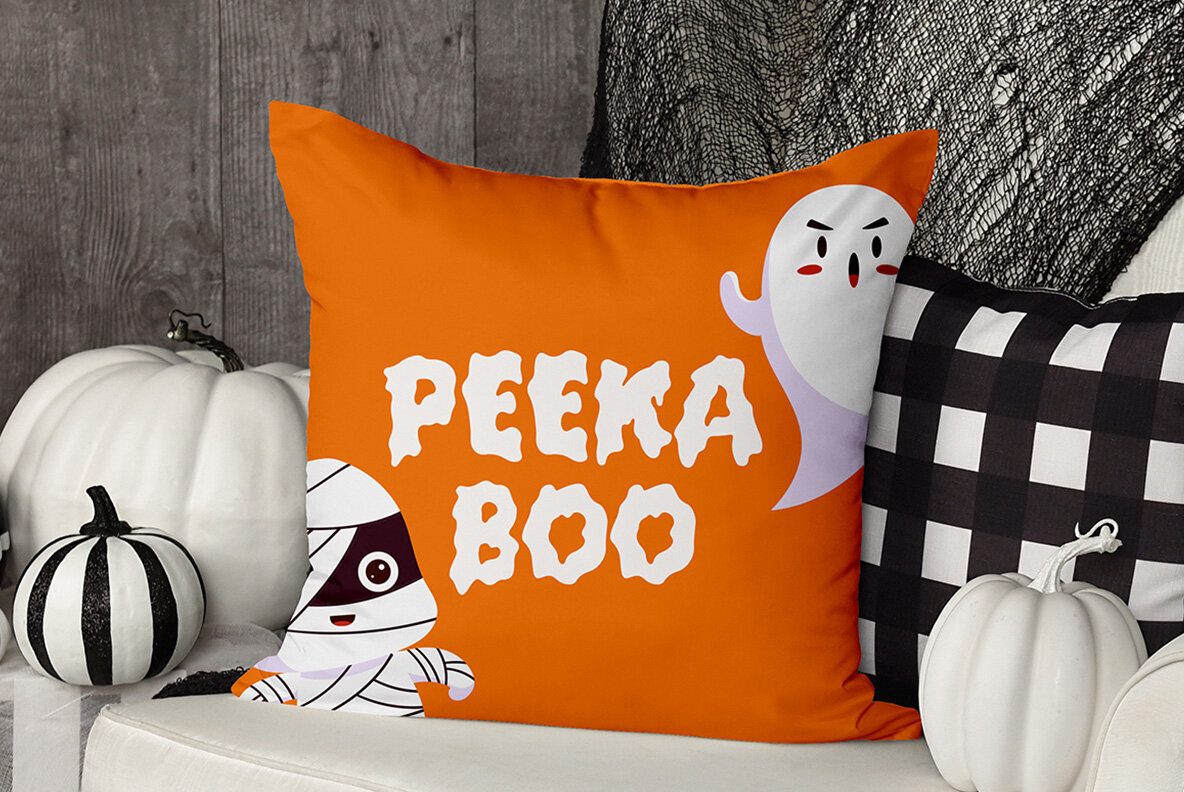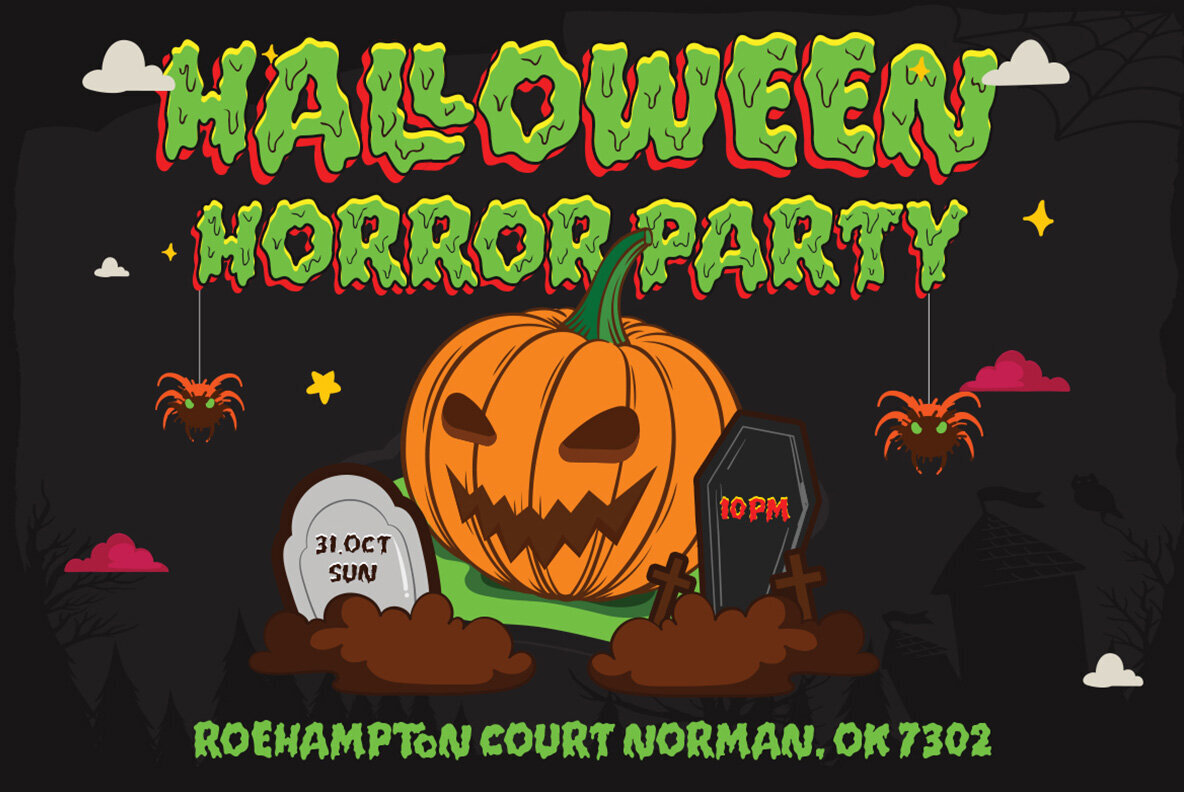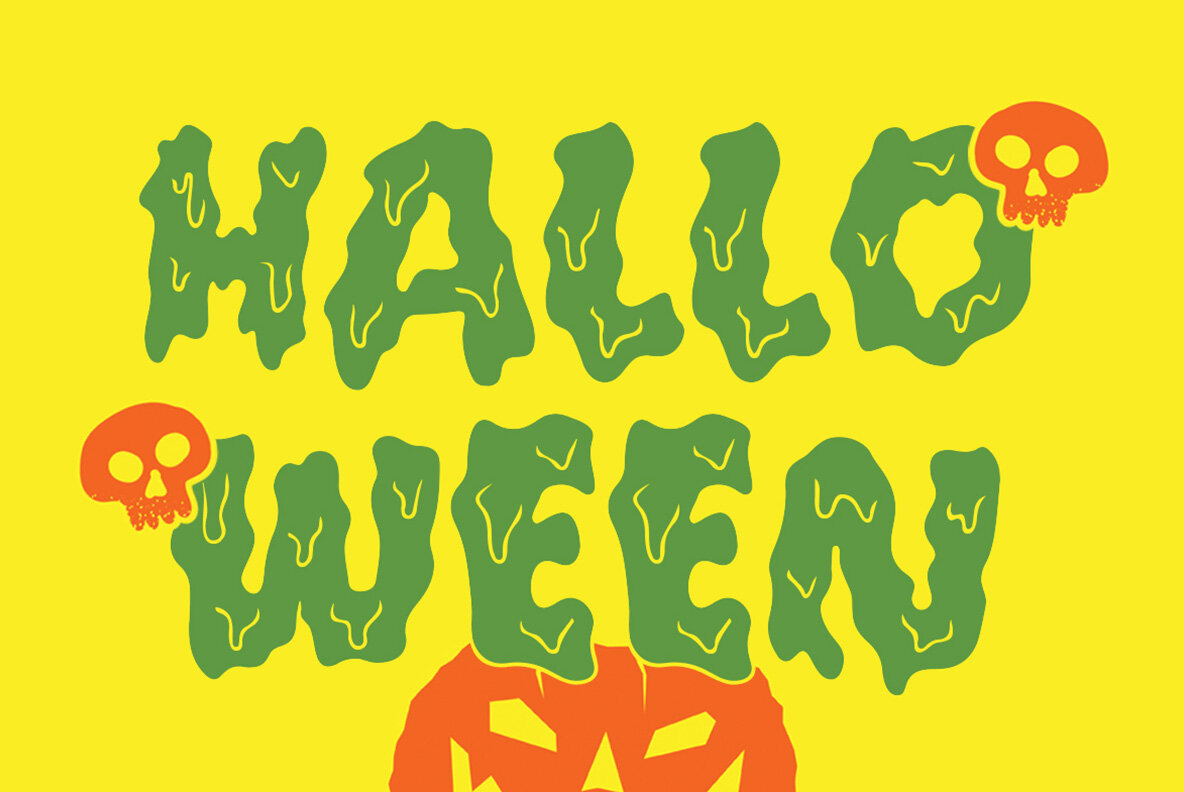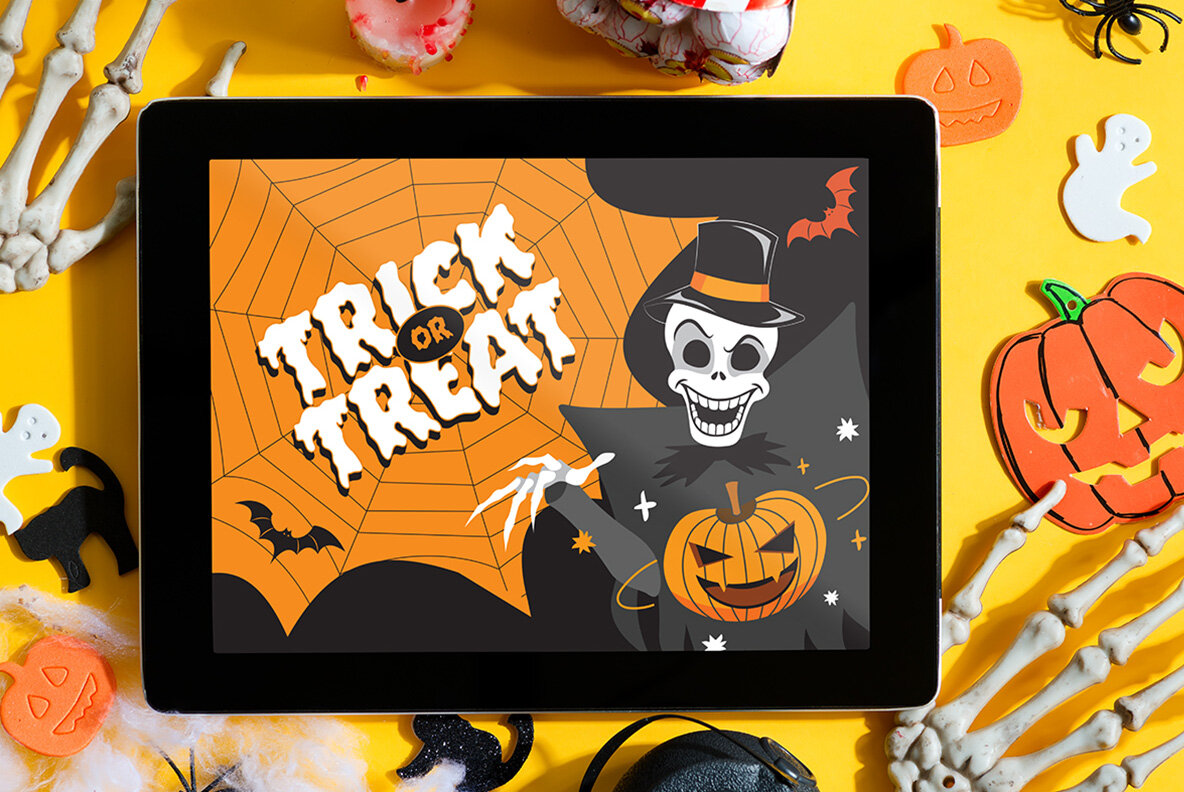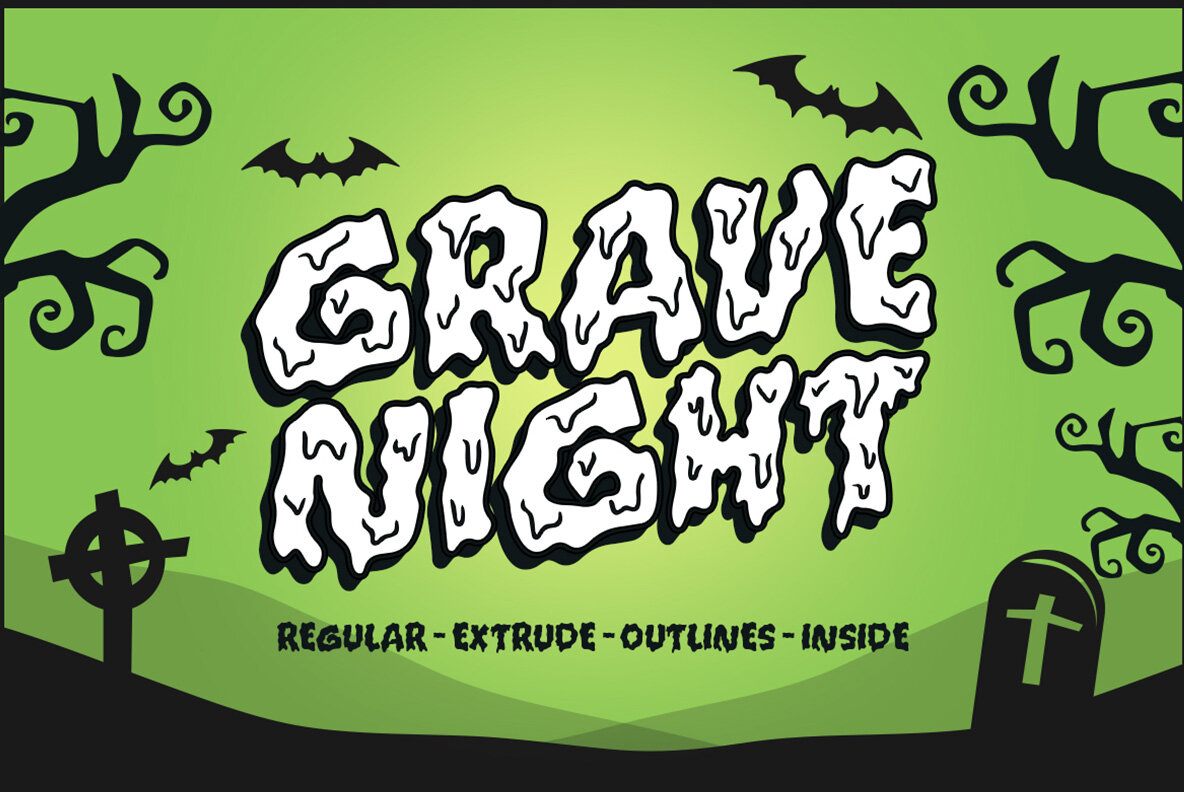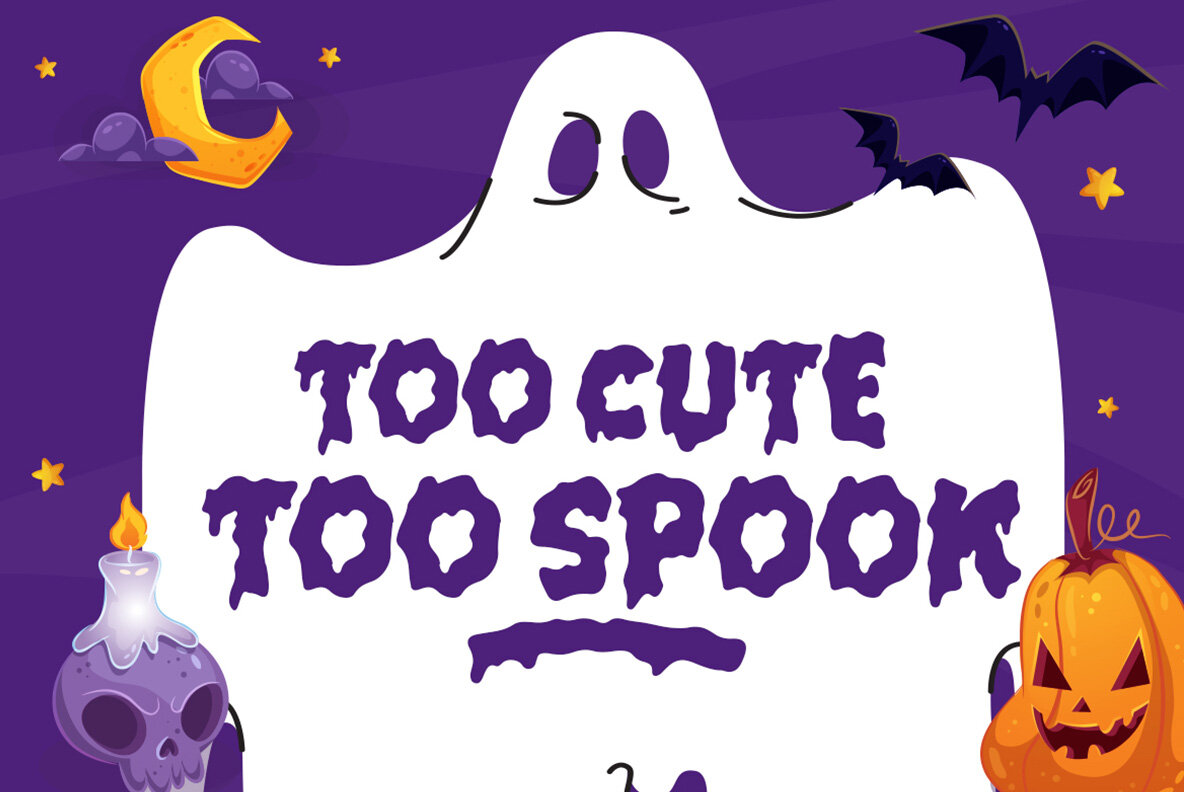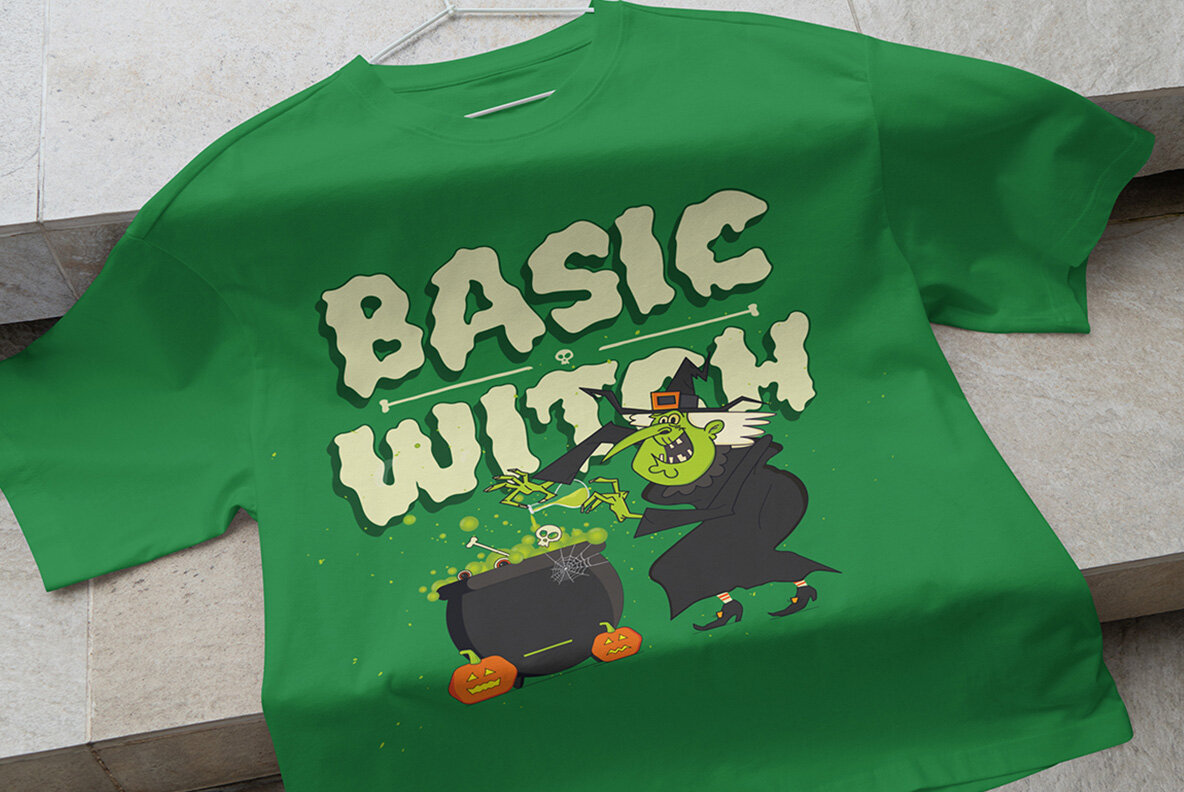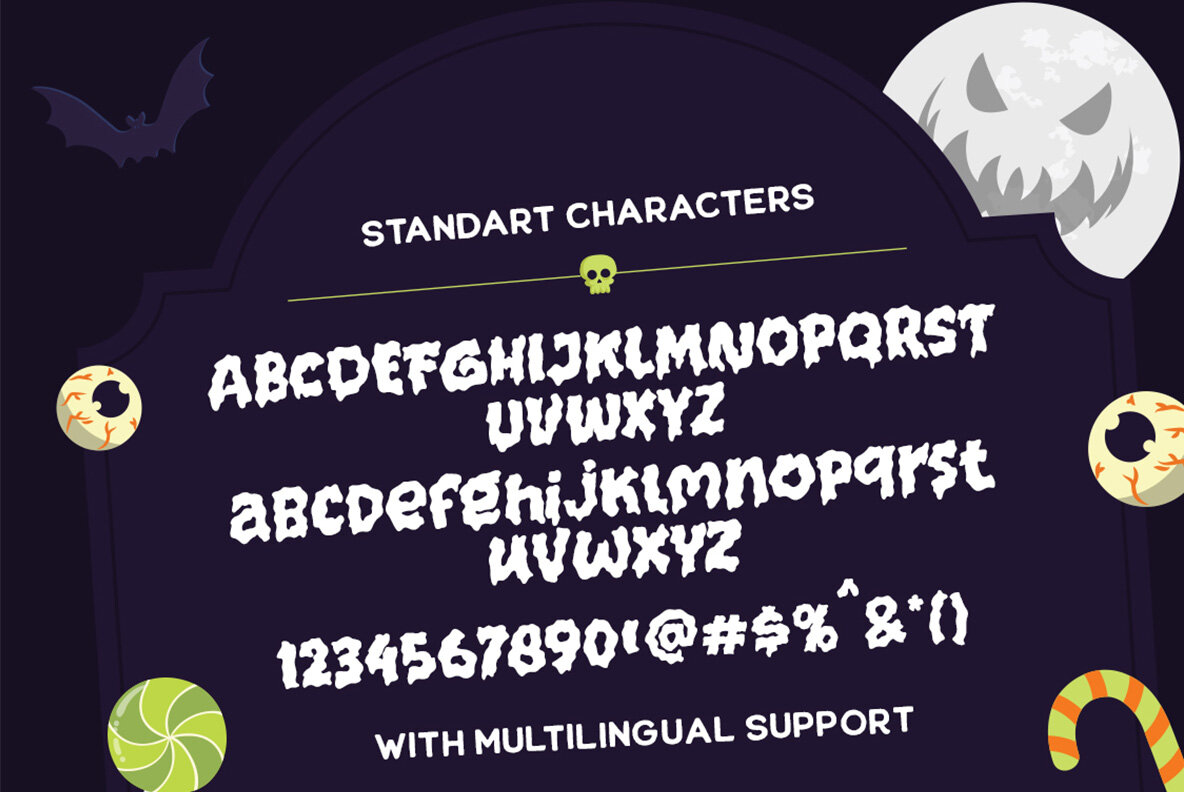
Moon Raze Font
The Moon Raze typeface by Letterhend Studio combines bold, unconventional forms ideal for themes of horror, thriller, and fun, spooky aesthetics. This unique font offers versatility, making it a quintessential choice for logos and a variety of formal applications such as invitations, labels, magazines, books, and advertisements. To fully leverage Moon Raze's capabilities, using robust design software like Adobe apps or Corel Draw is recommended. For guidance on accessing OpenType features, visit ....Moon Raze: Bold Display Typeface for Thrilling Design
Features of Moon Raze